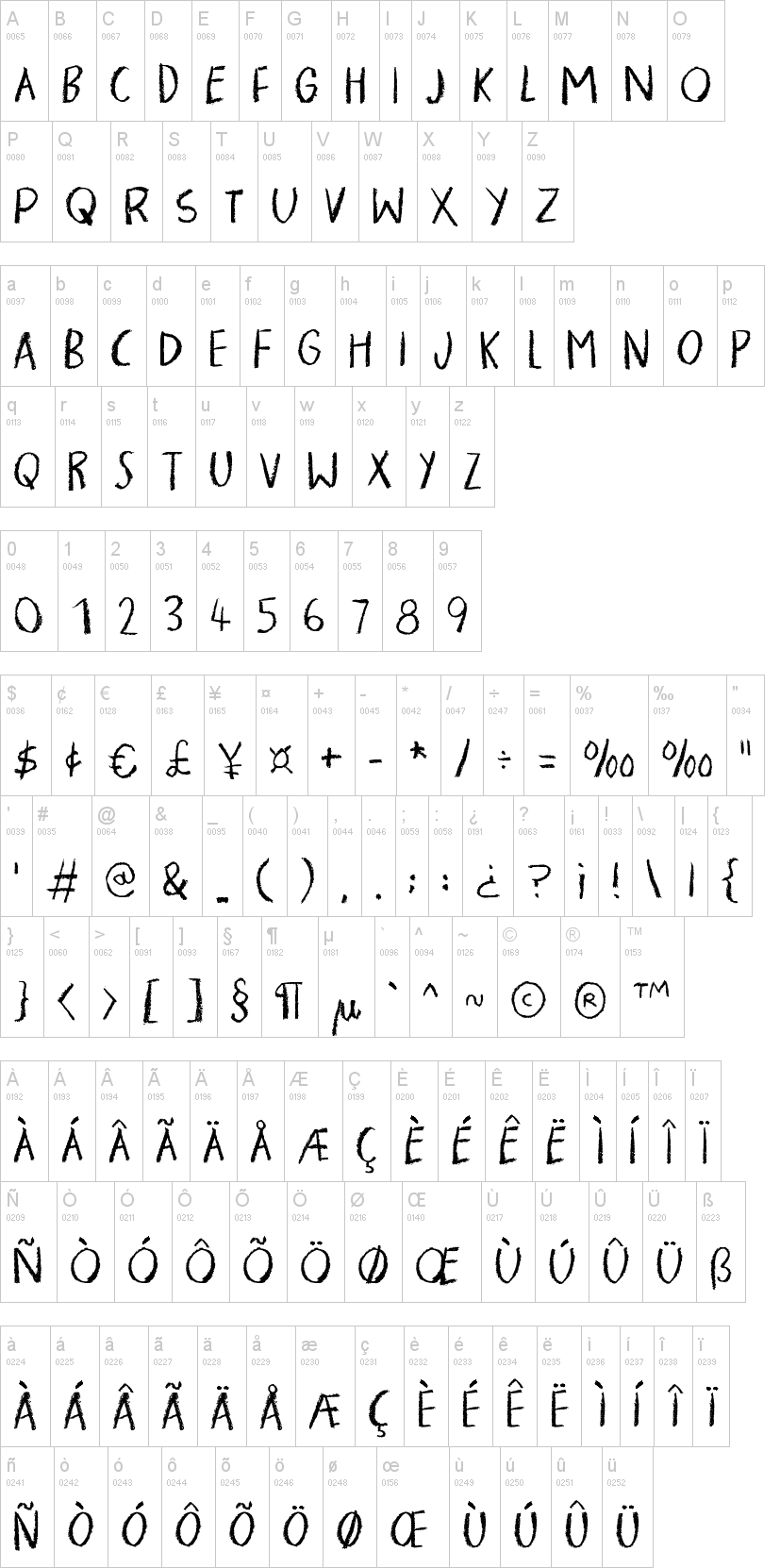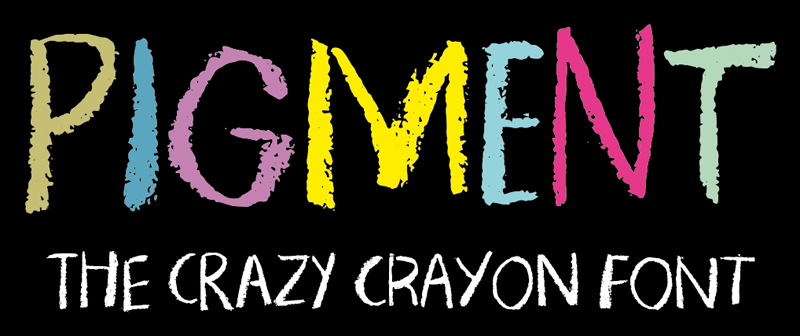
Note of the authorCrayon font gone crazy! 8 different versions of each letter, and they cycle as you type! Great variation, and enough to confuse people about this being a font or real crayon writing!
And of course, the font has got a large amount of accented characters as well!